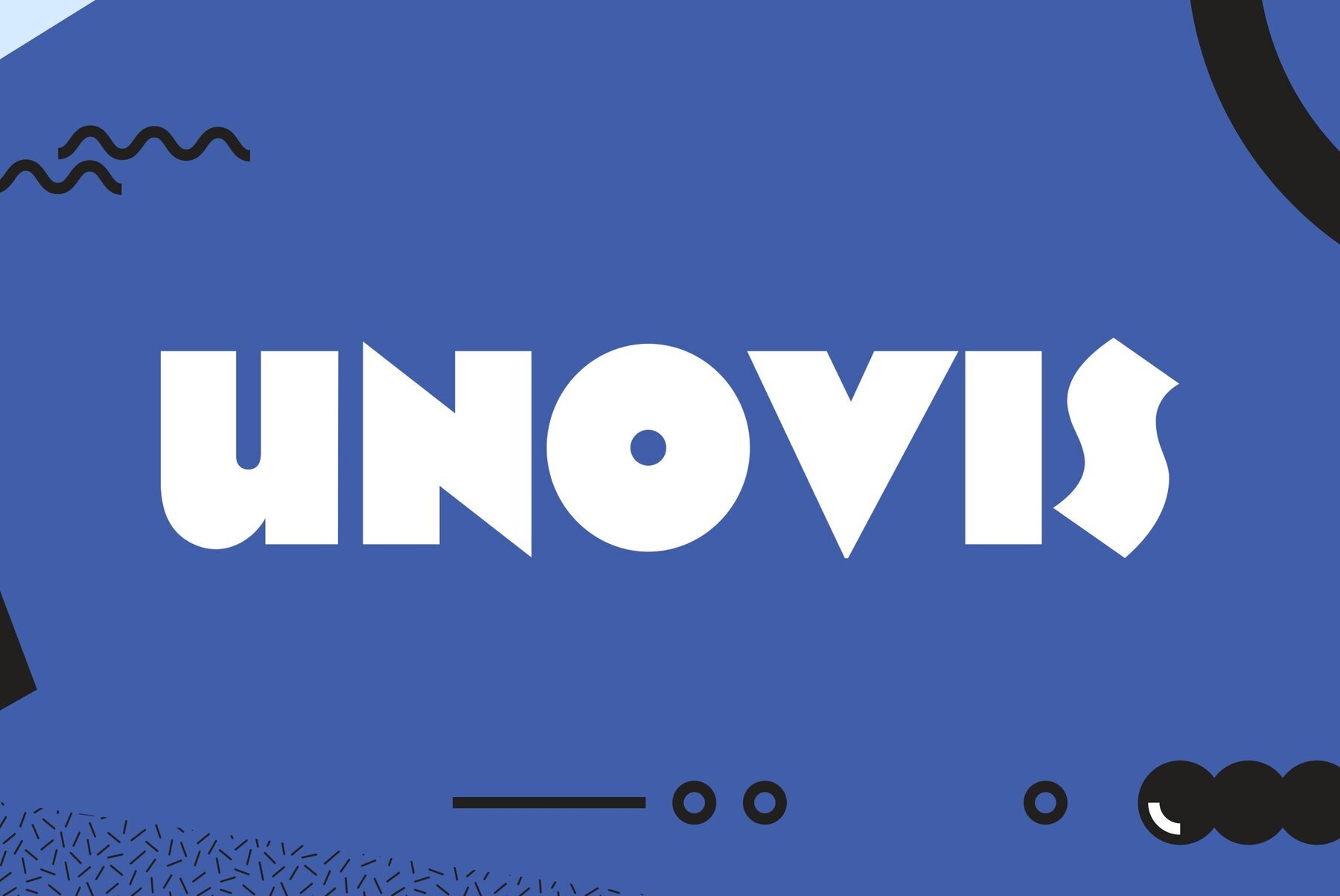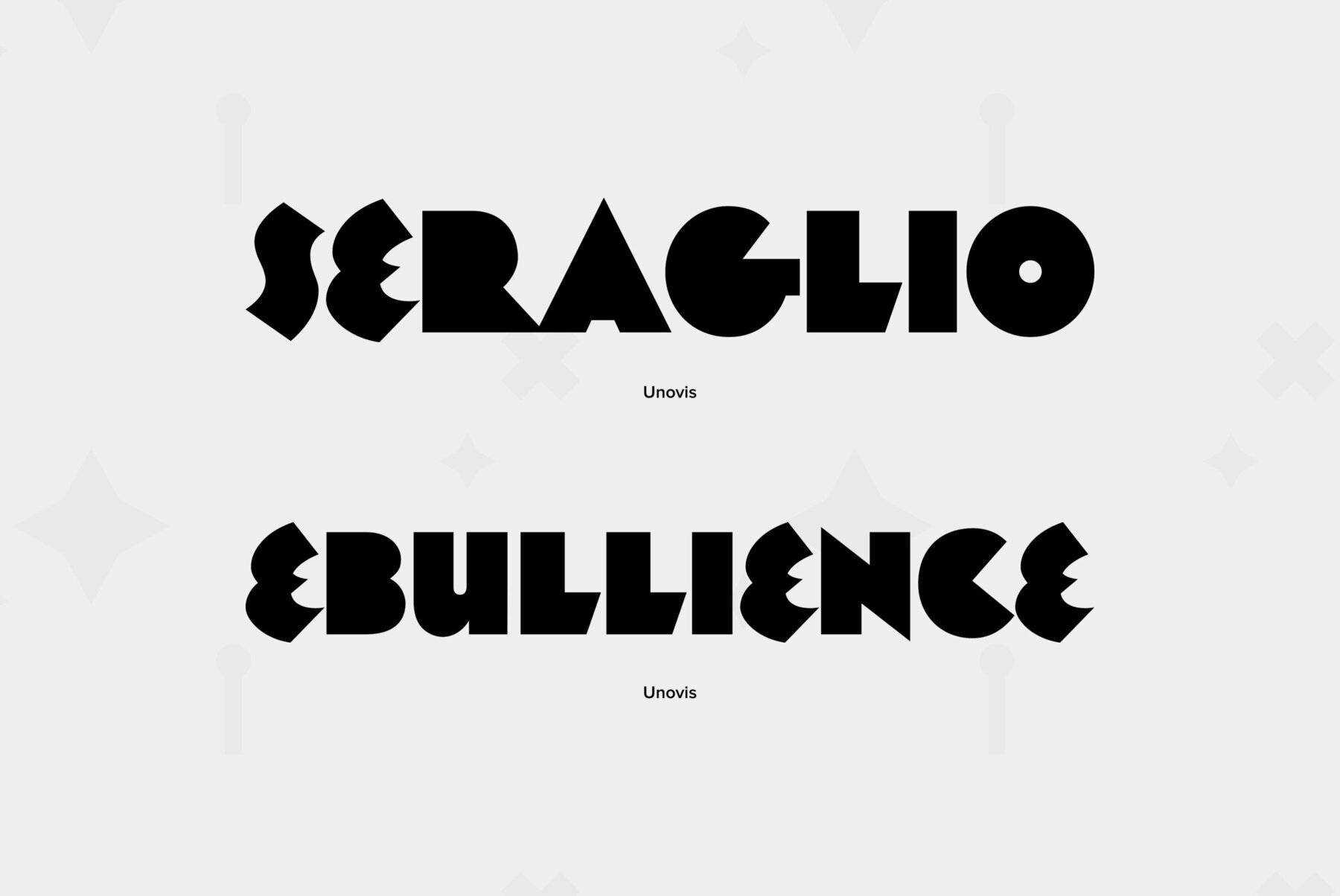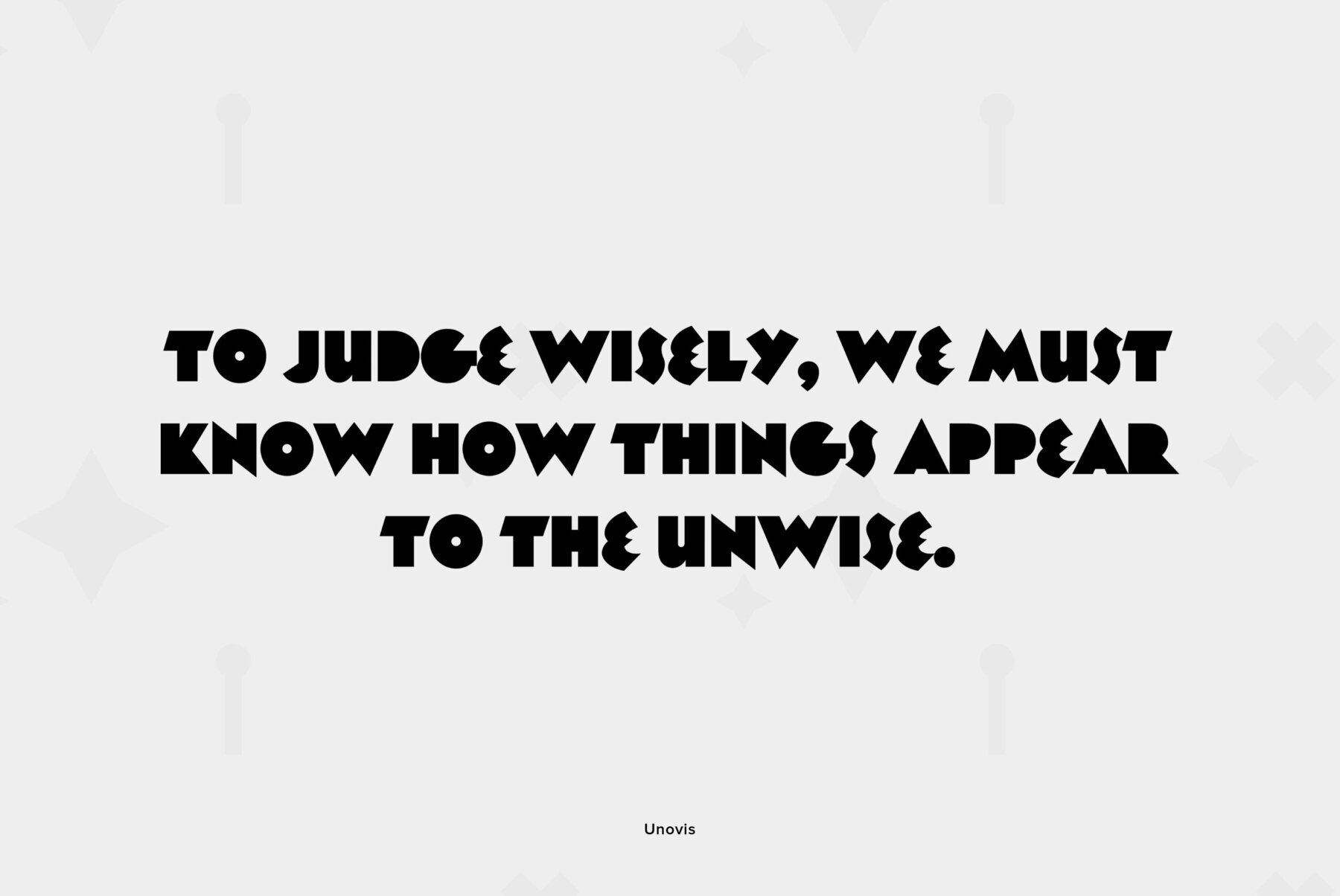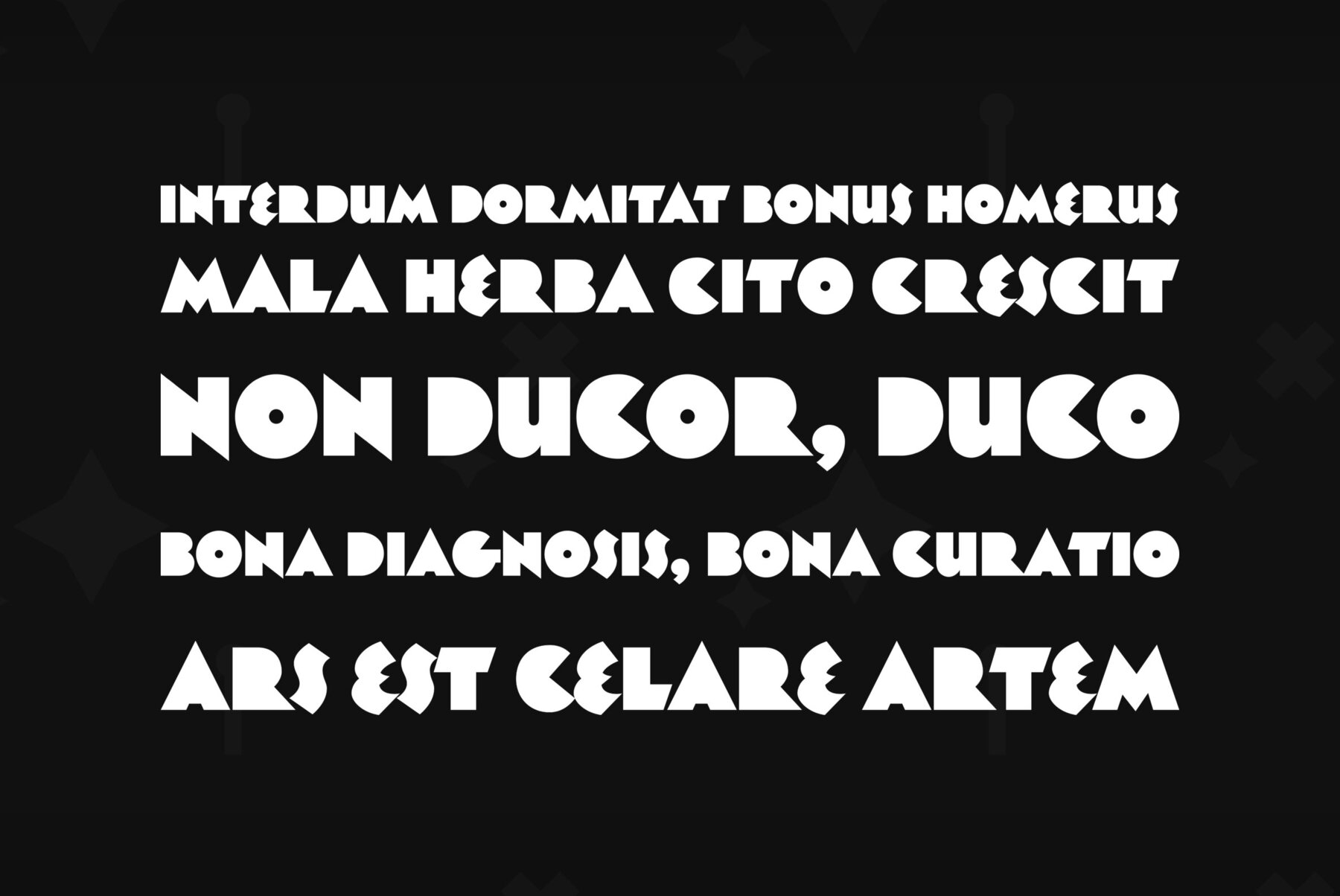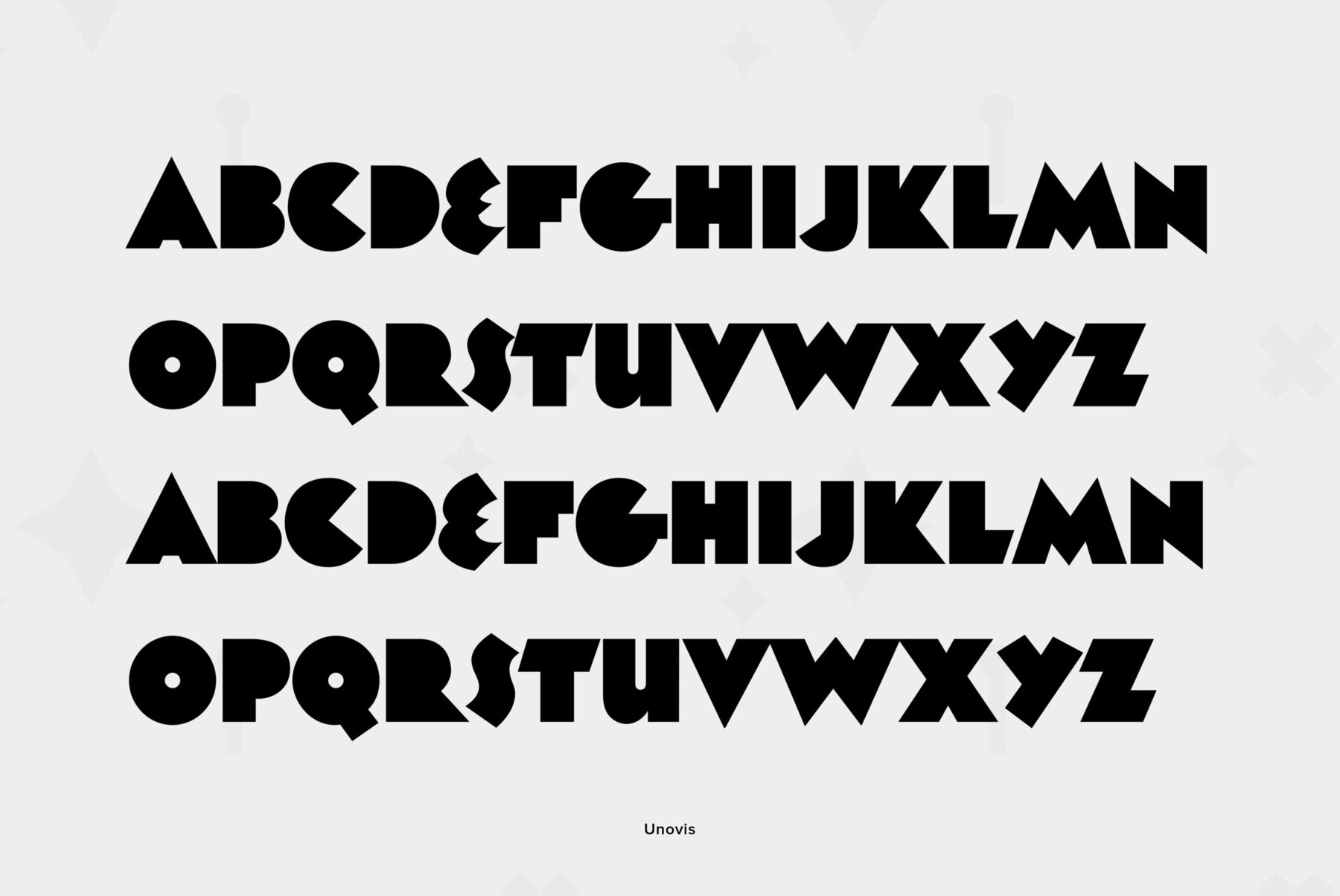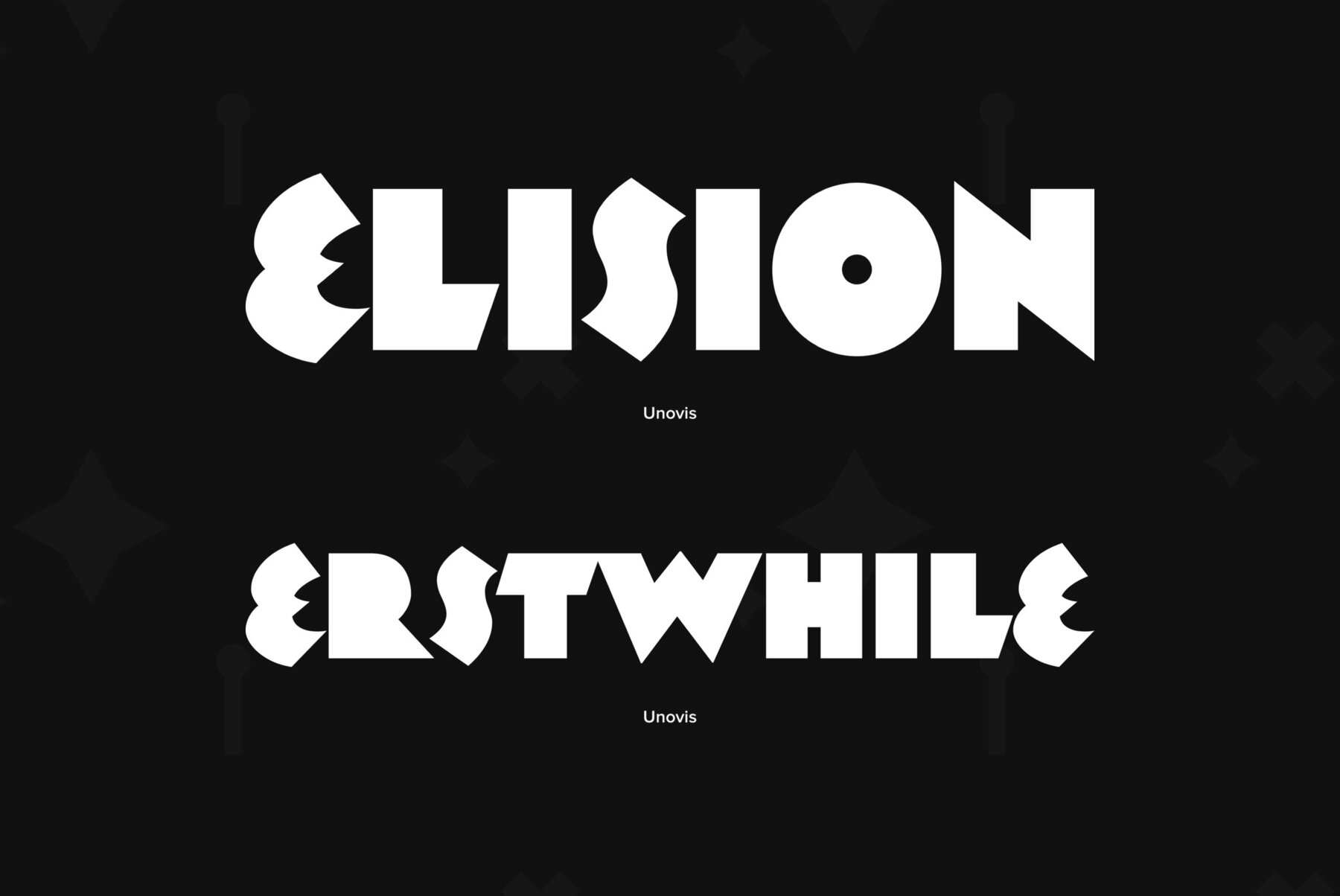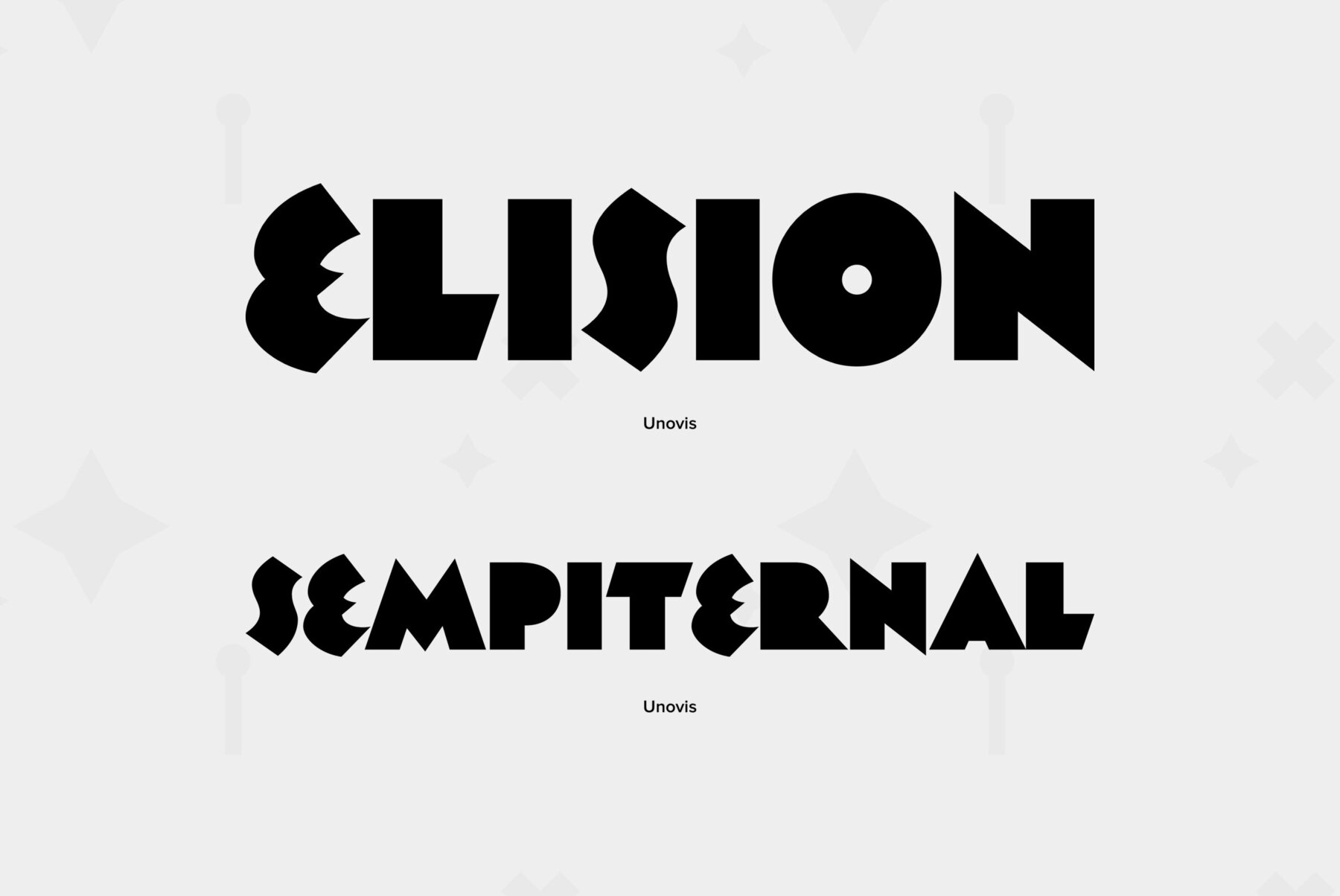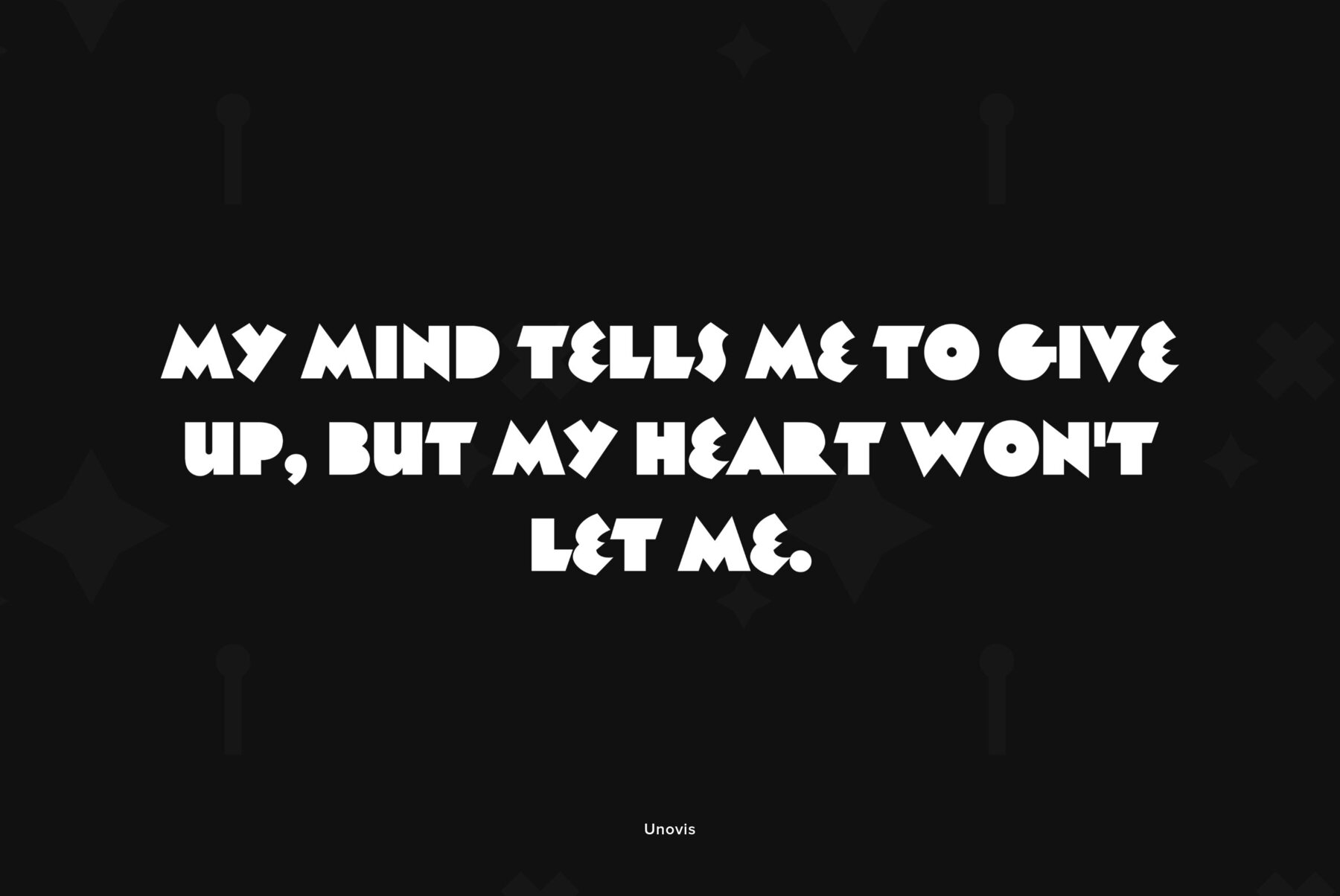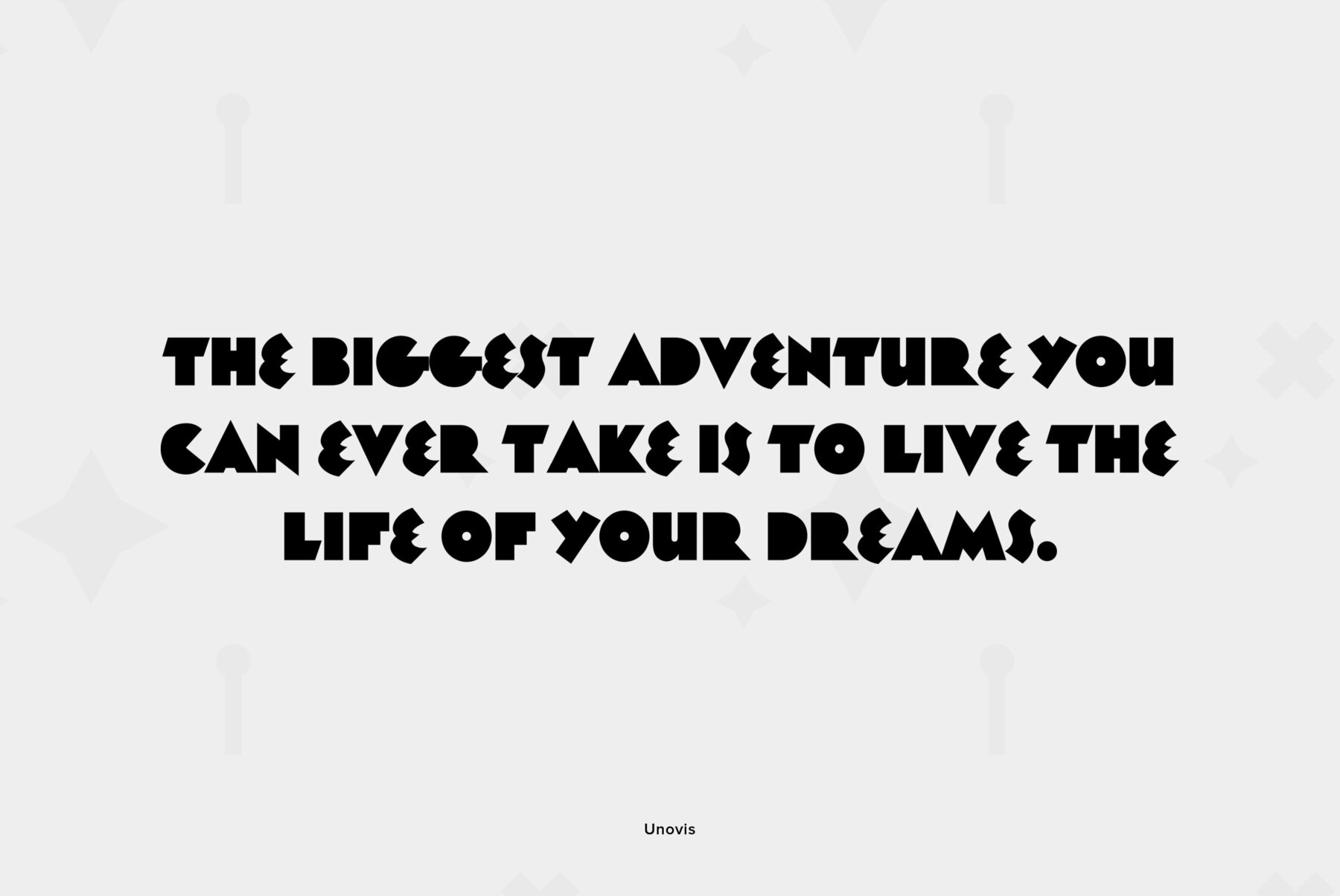
PT Unovis™ was designed for ParaType in 2001 by Tagir Safayev. Inspired by the shapes of lettering of the Russian Avant Garde artists of Kazimir Malevich’s circle at the beginning of the 20th century. Based on simple geometric forms. Caps only....
PT Unovis™ was designed for ParaType in 2001 by Tagir Safayev. Inspired by the shapes of lettering of the Russian Avant Garde artists of Kazimir Malevich’s circle at the beginning of the 20th century. Based on simple geometric forms. Caps only. For use in advertising and display typography.